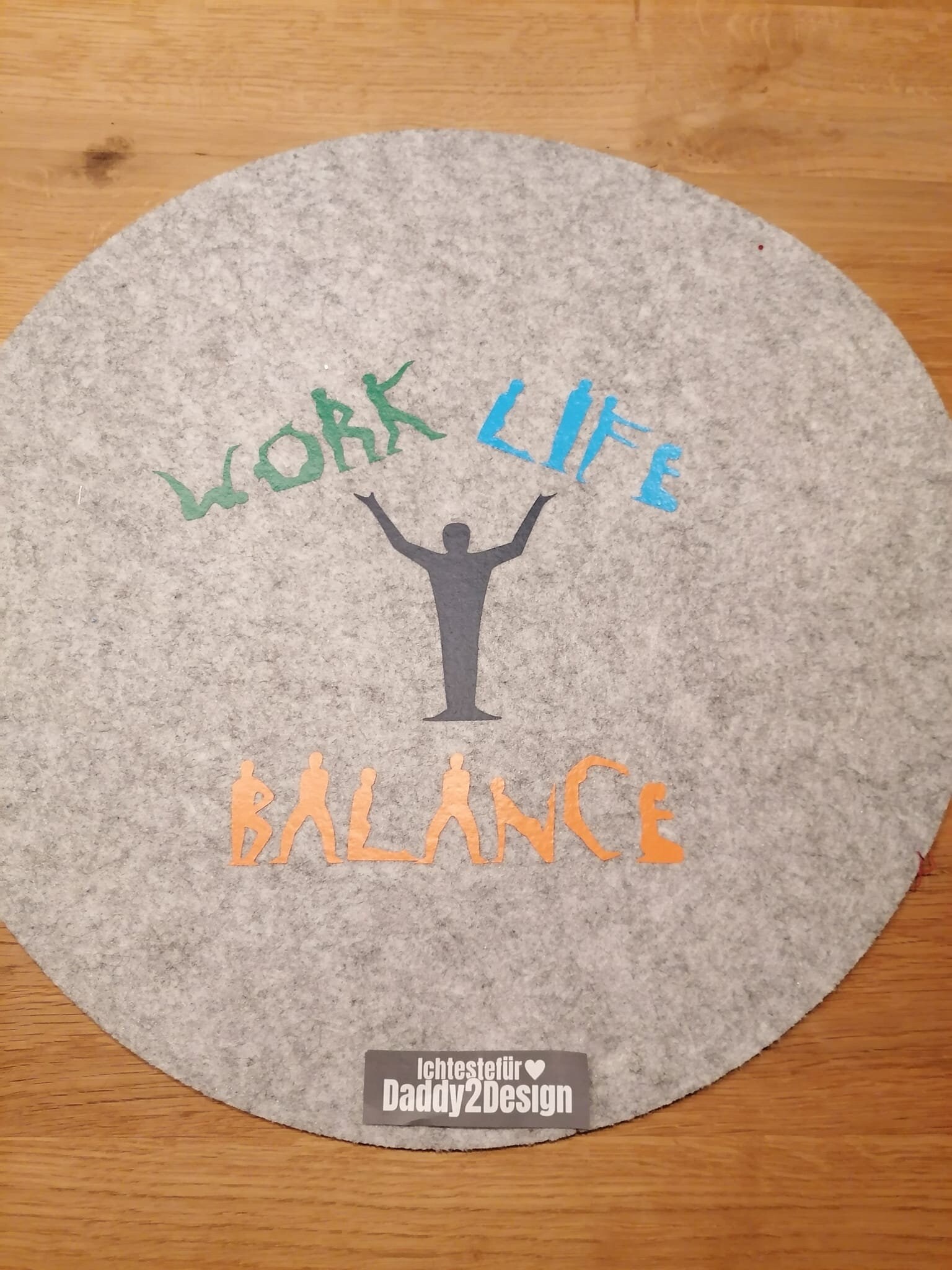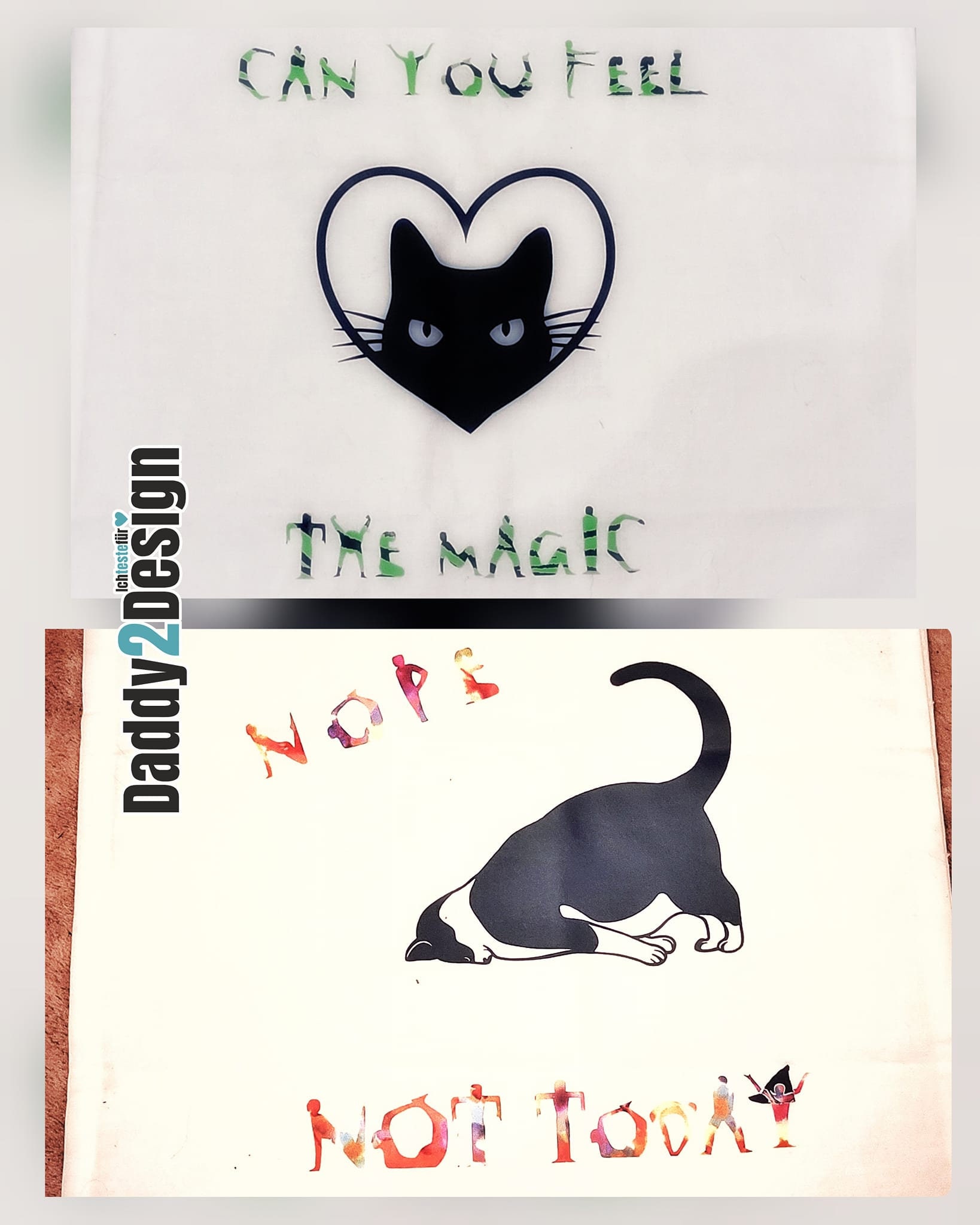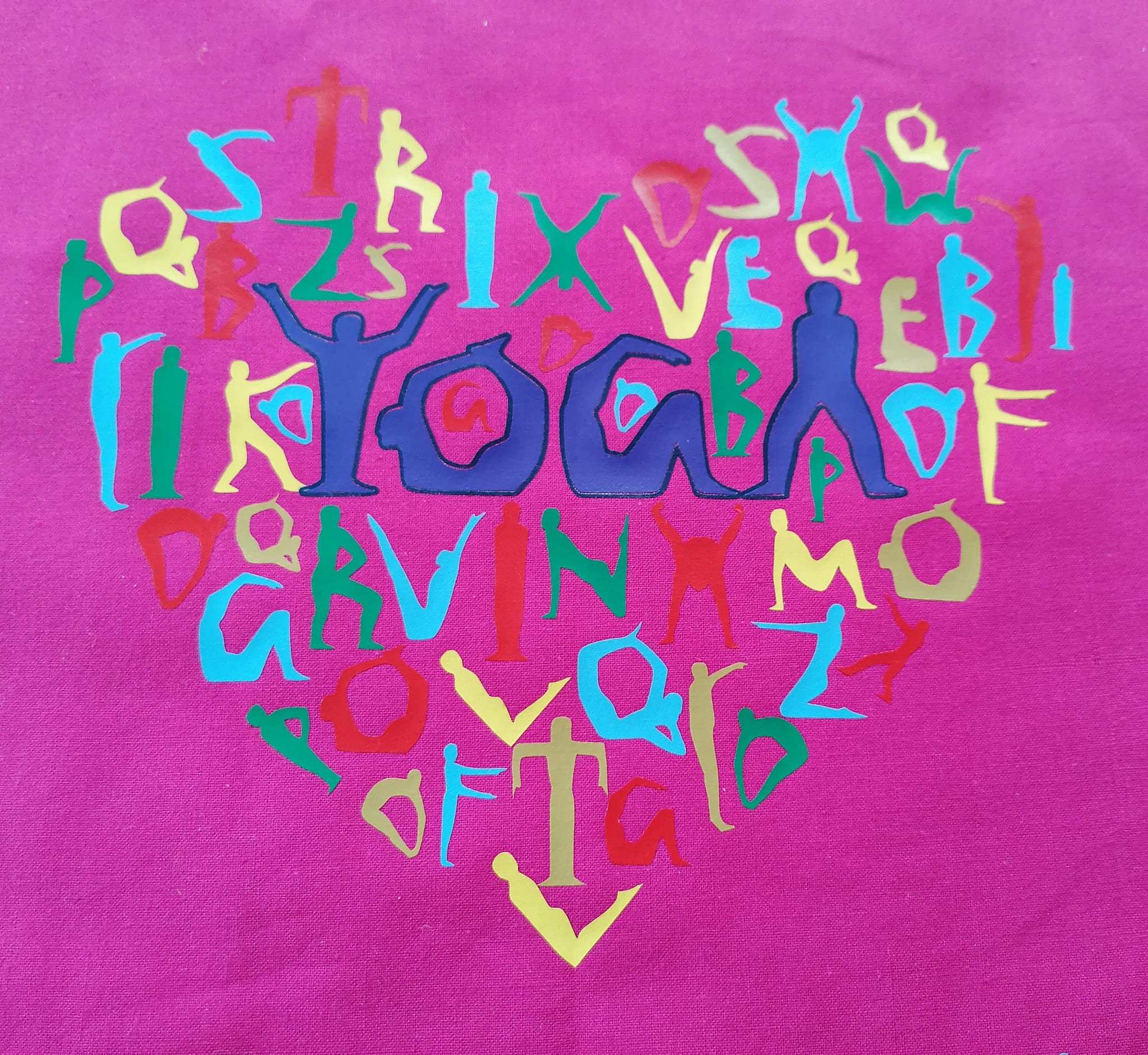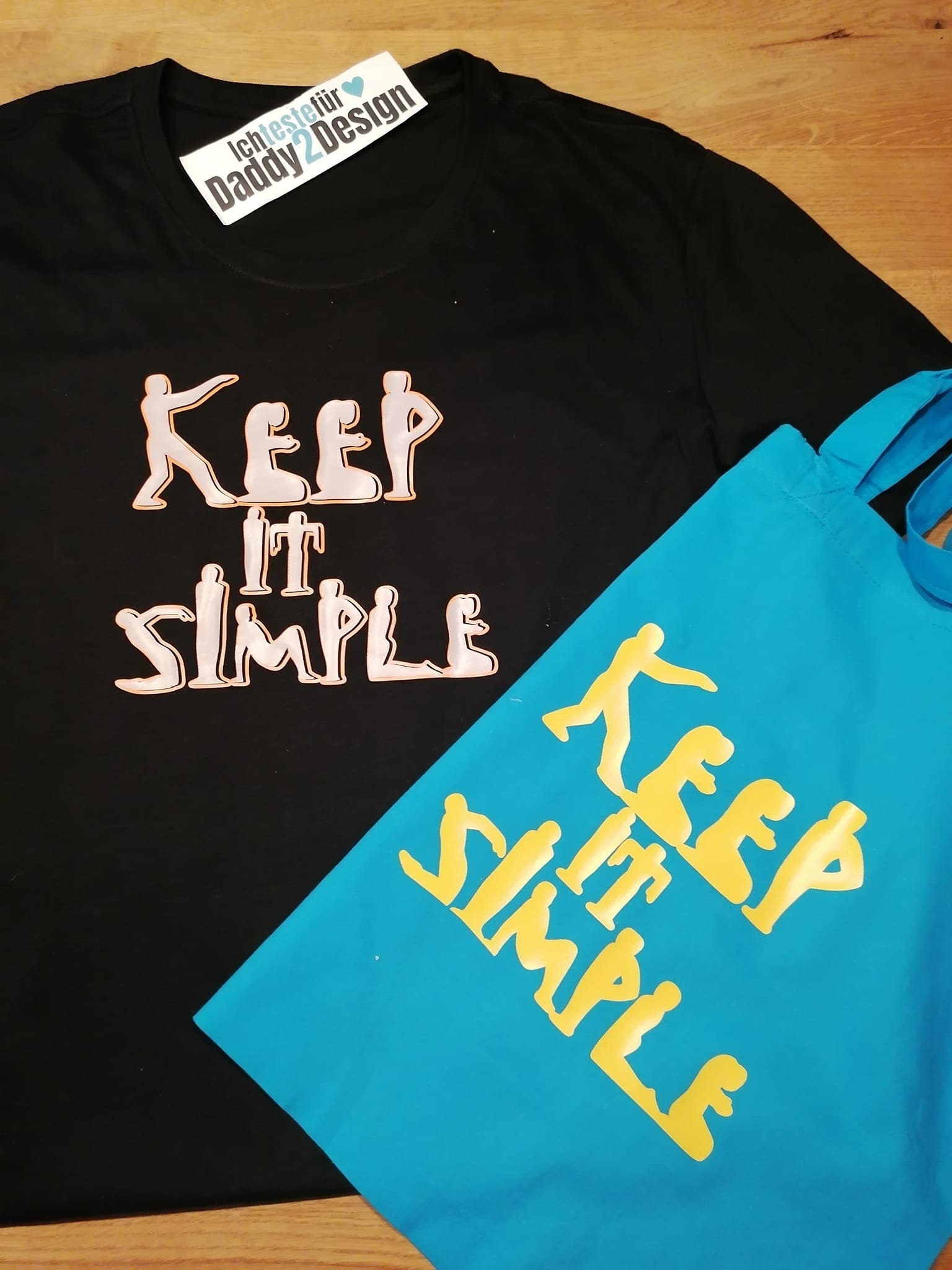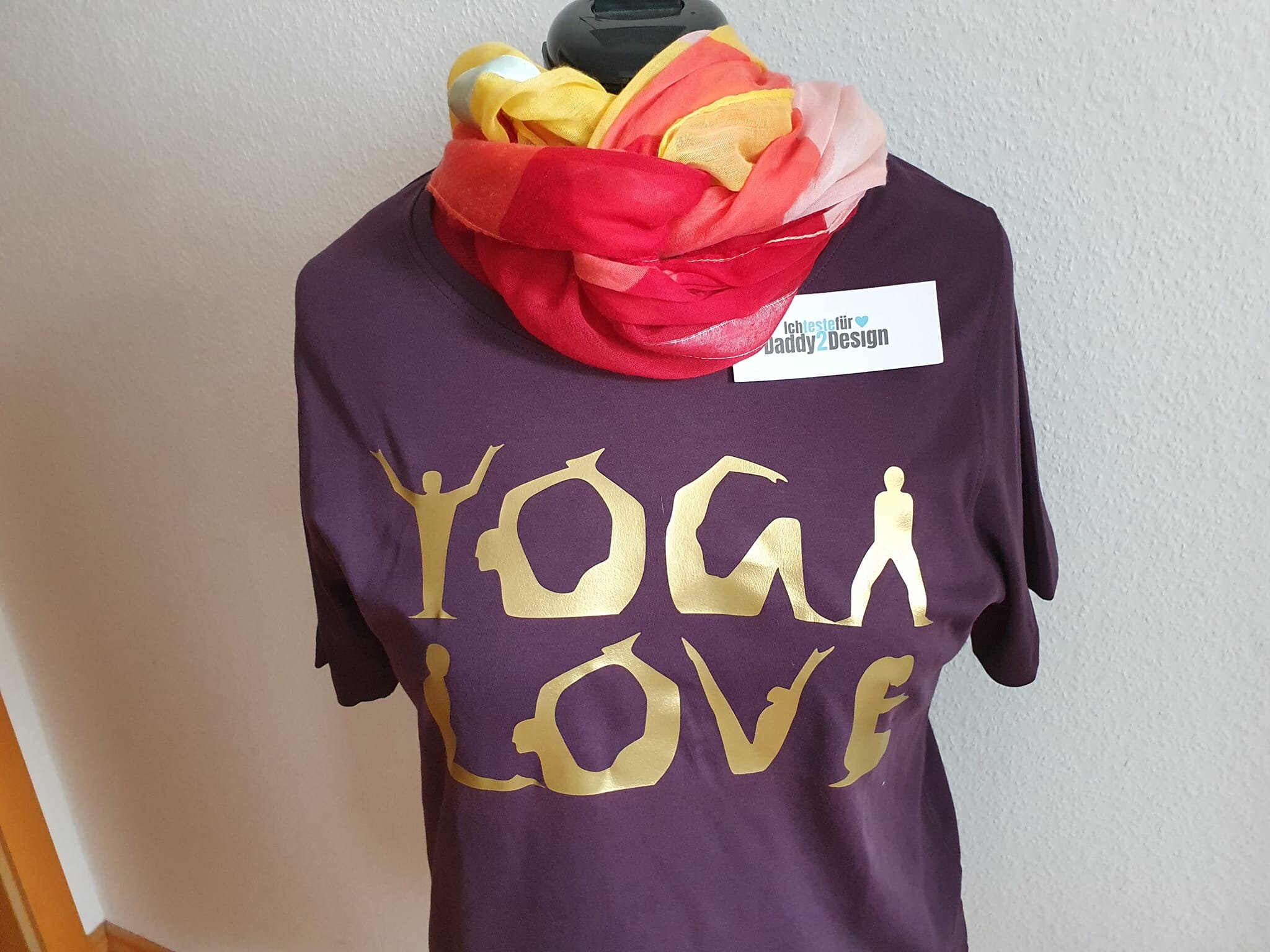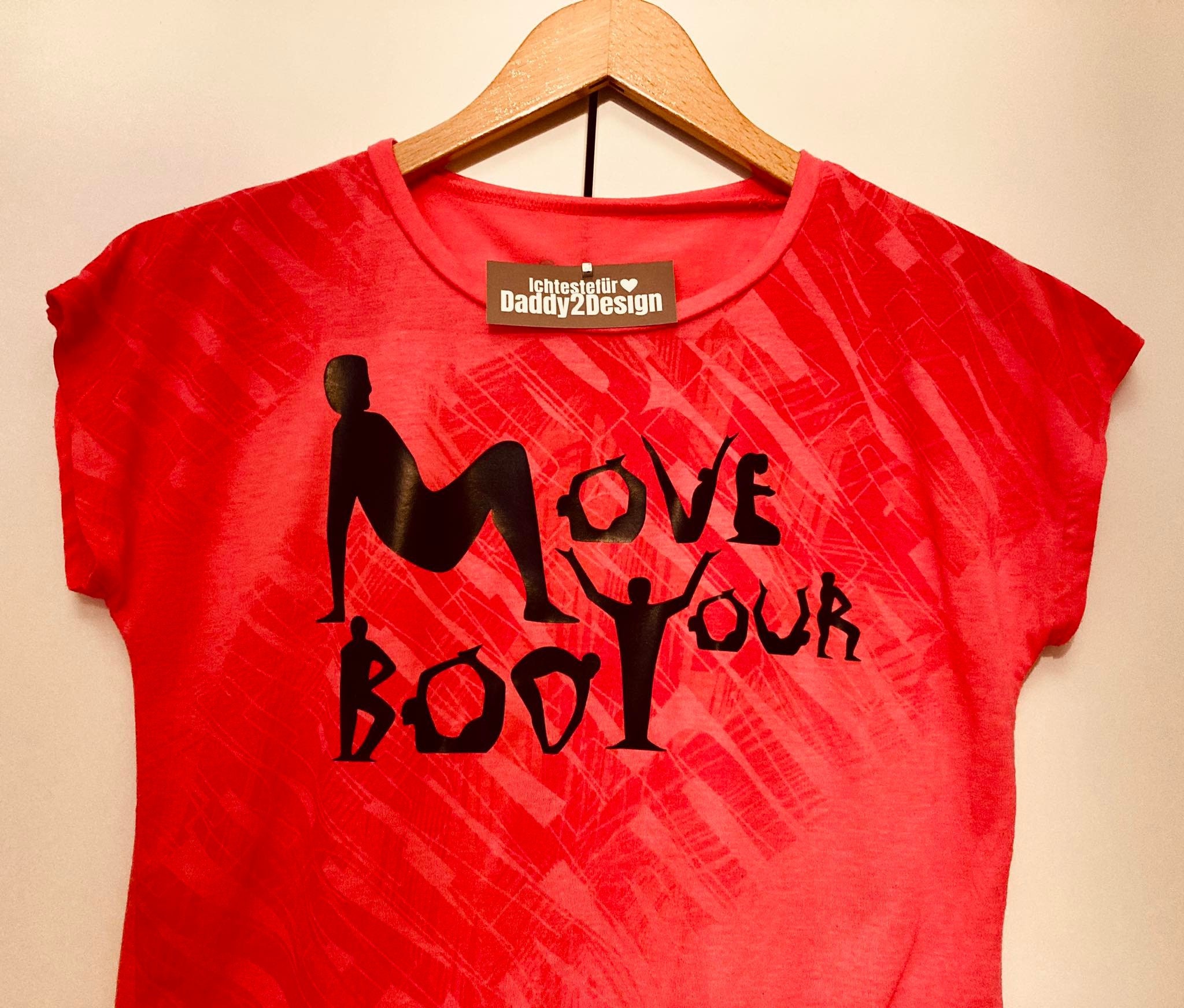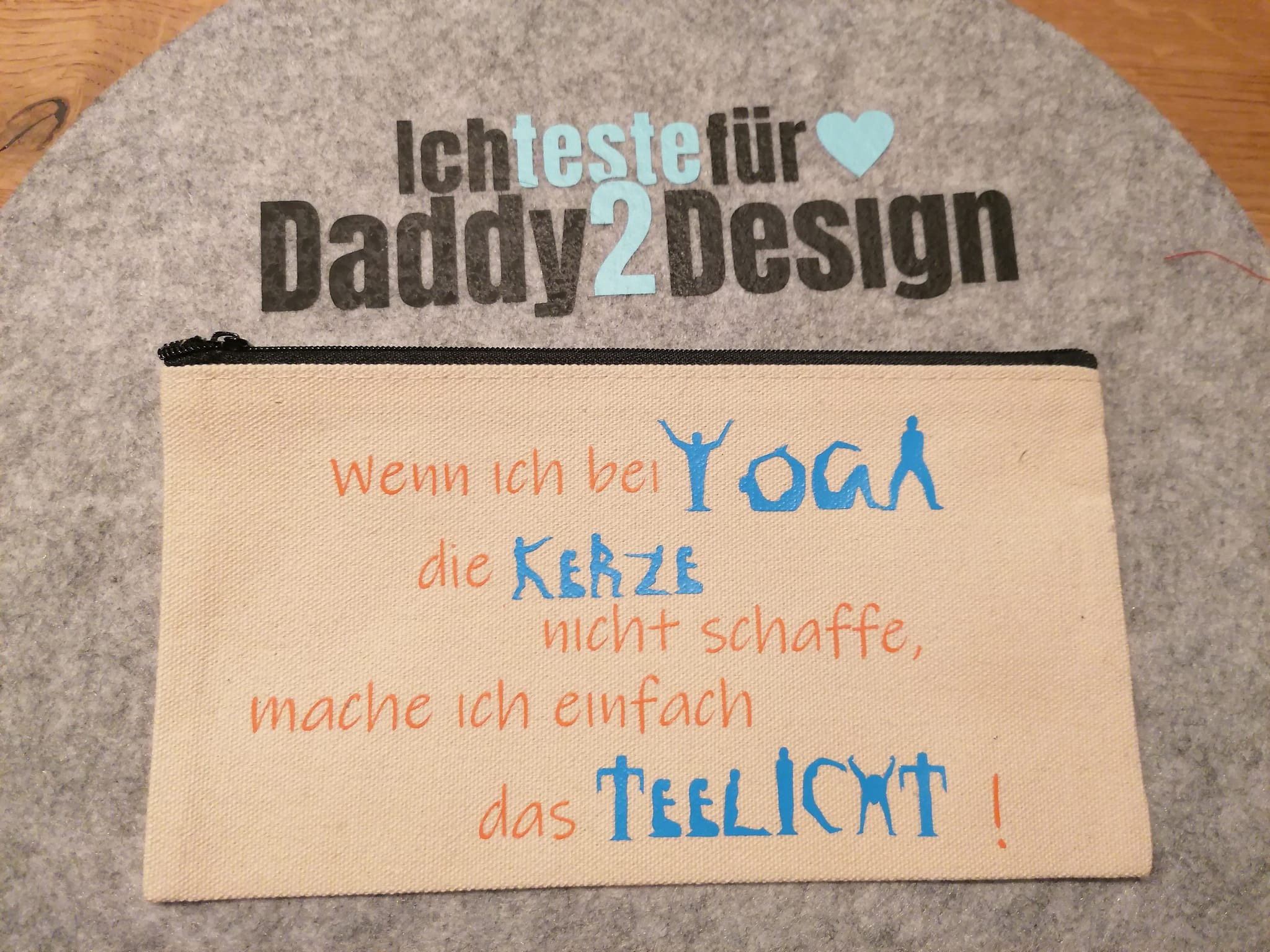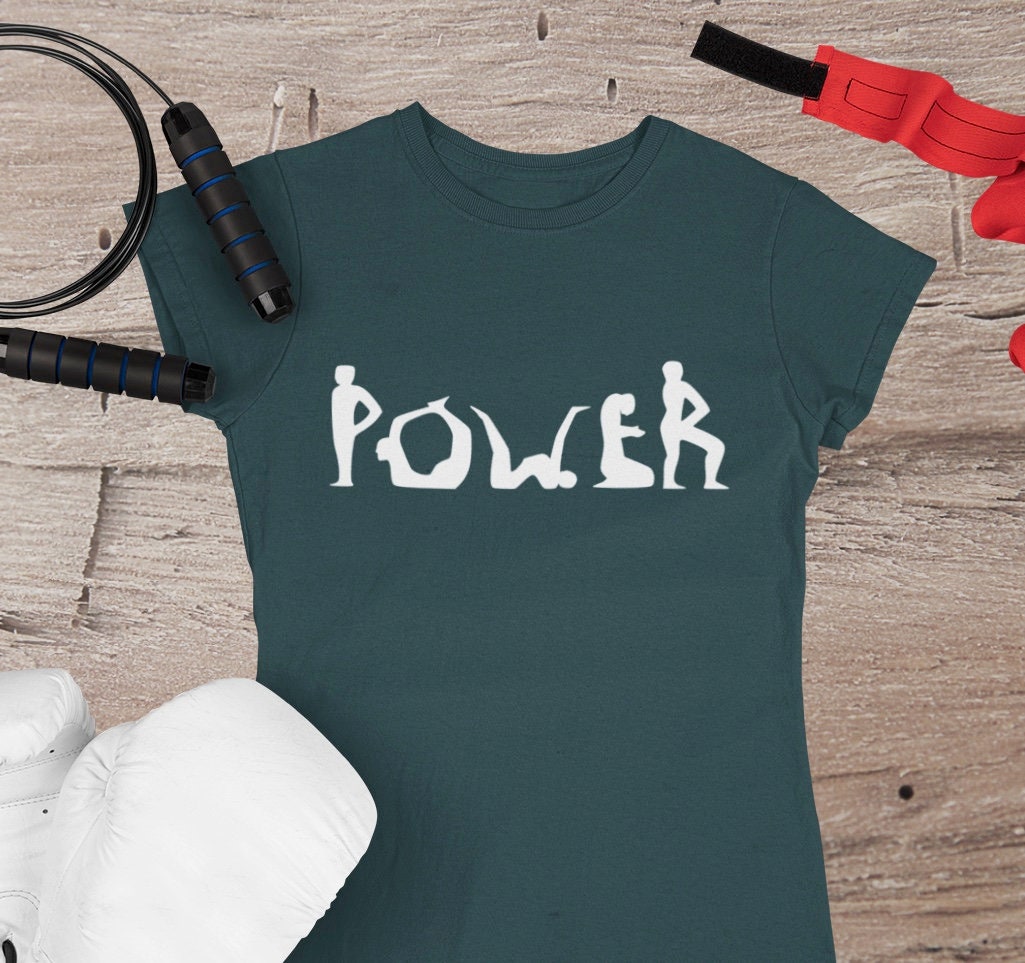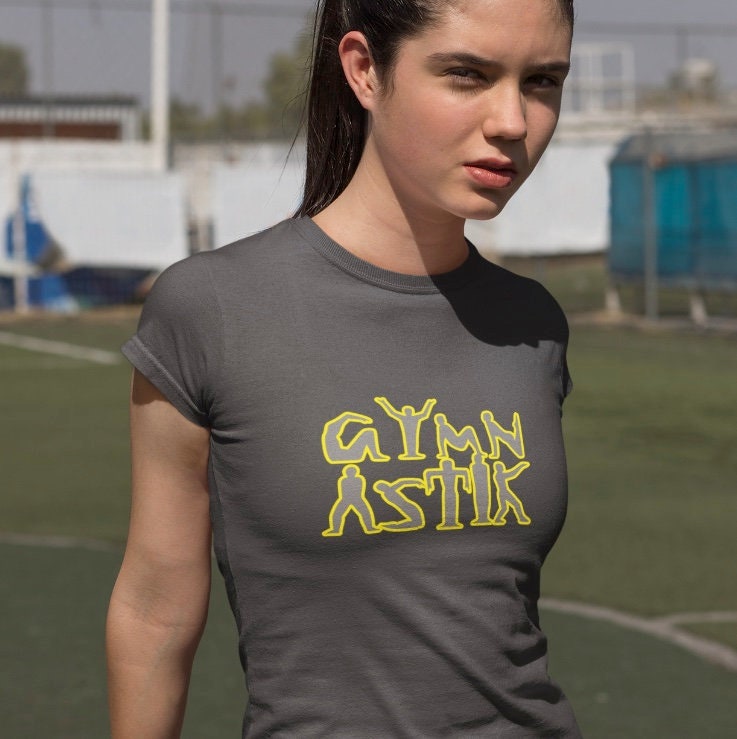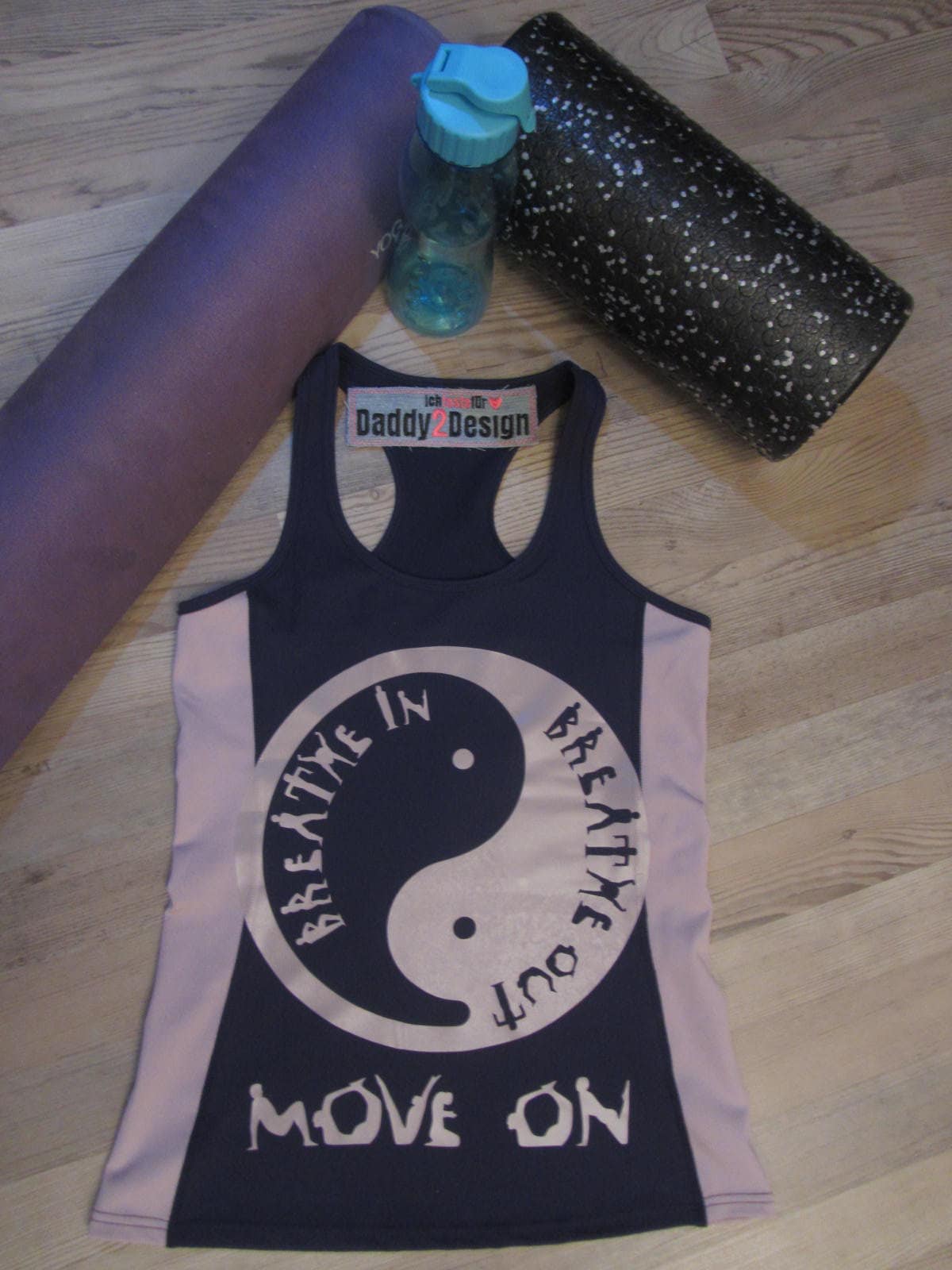
A complete ABC of bodies including special letters
AS A REAL FONT 😮🥰
the Body Language ABC
The testers have all shot themselves into yoga and sports, but with it you can do ❤ ❤ ❤ so many other things